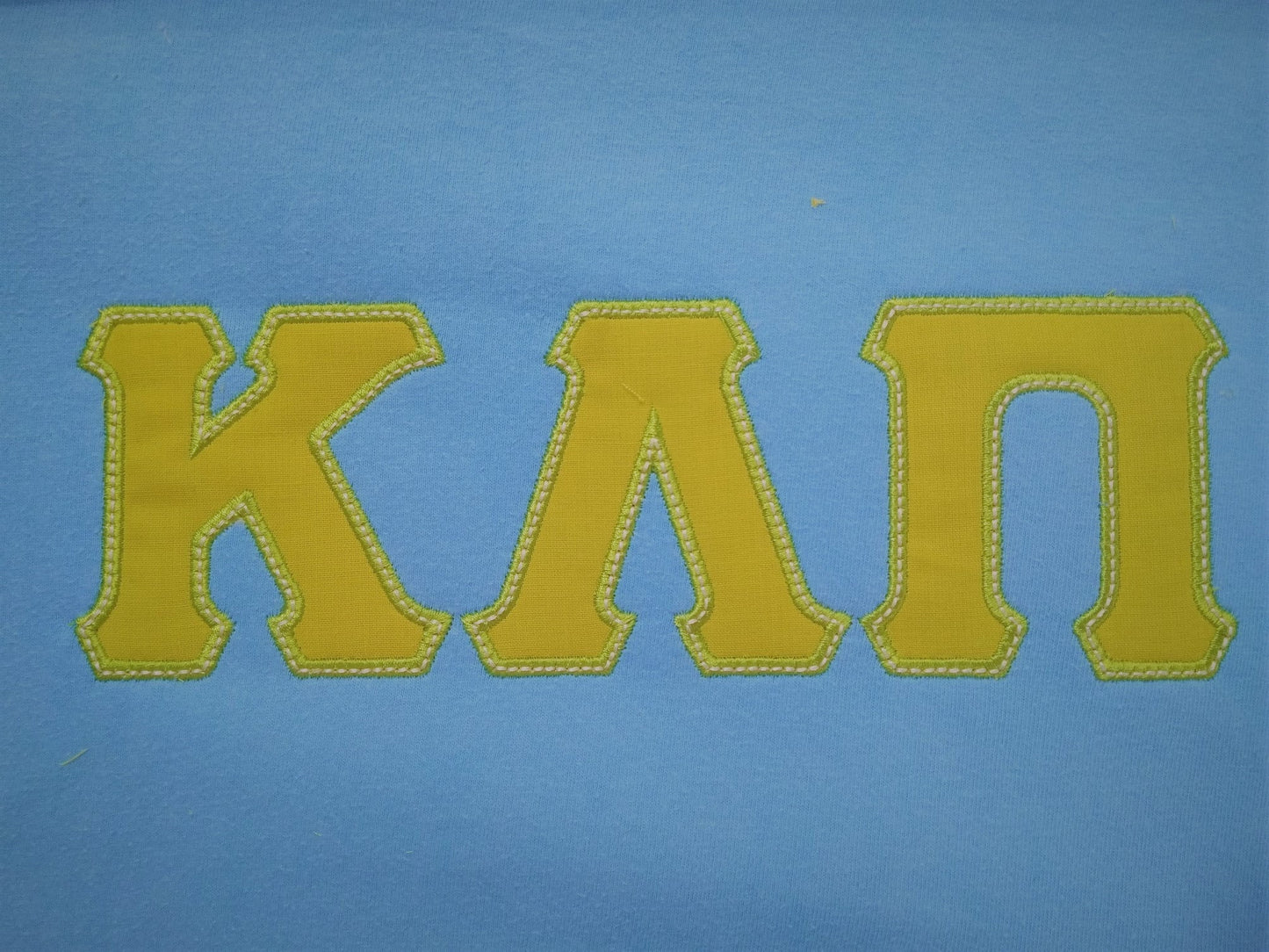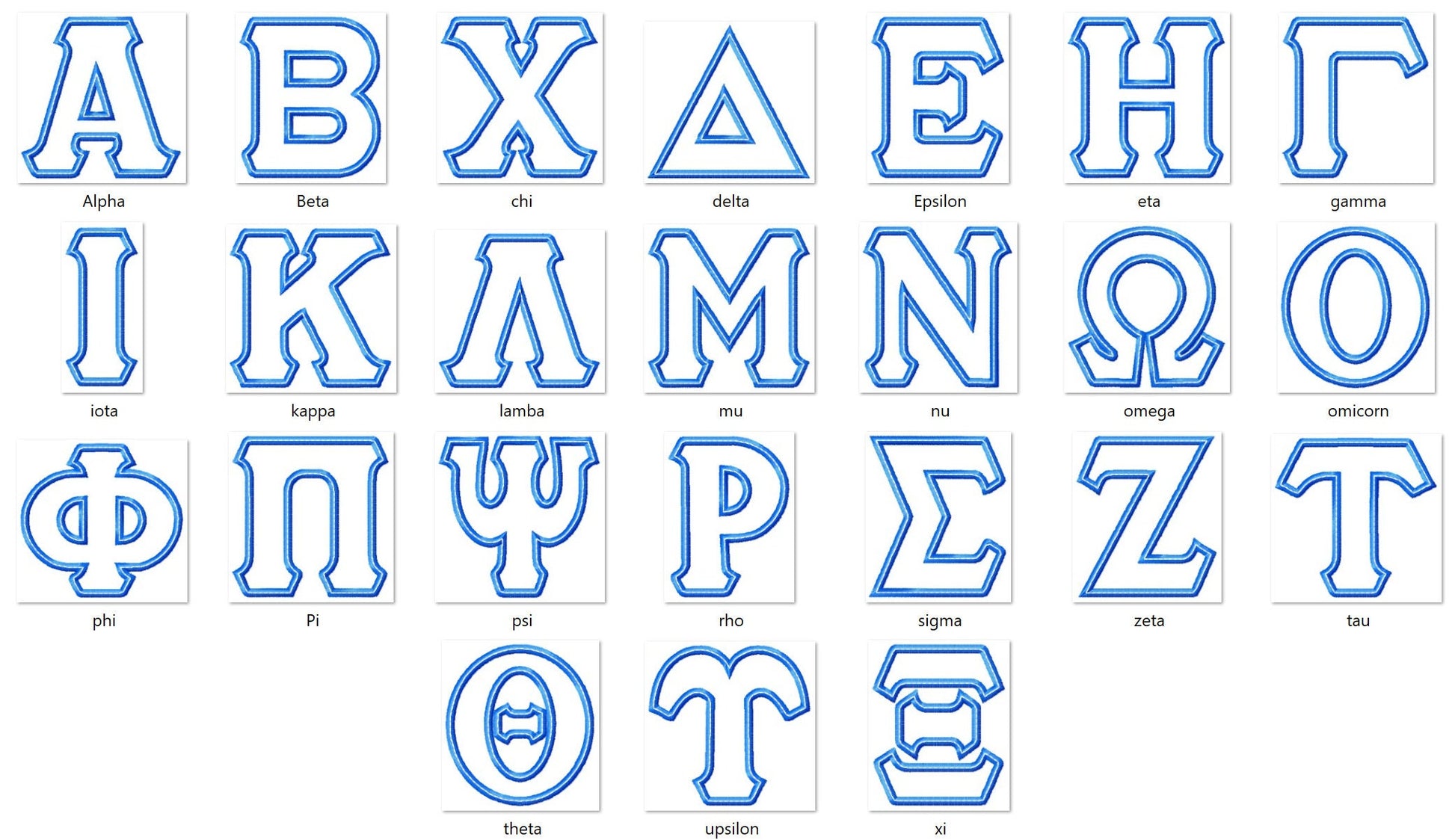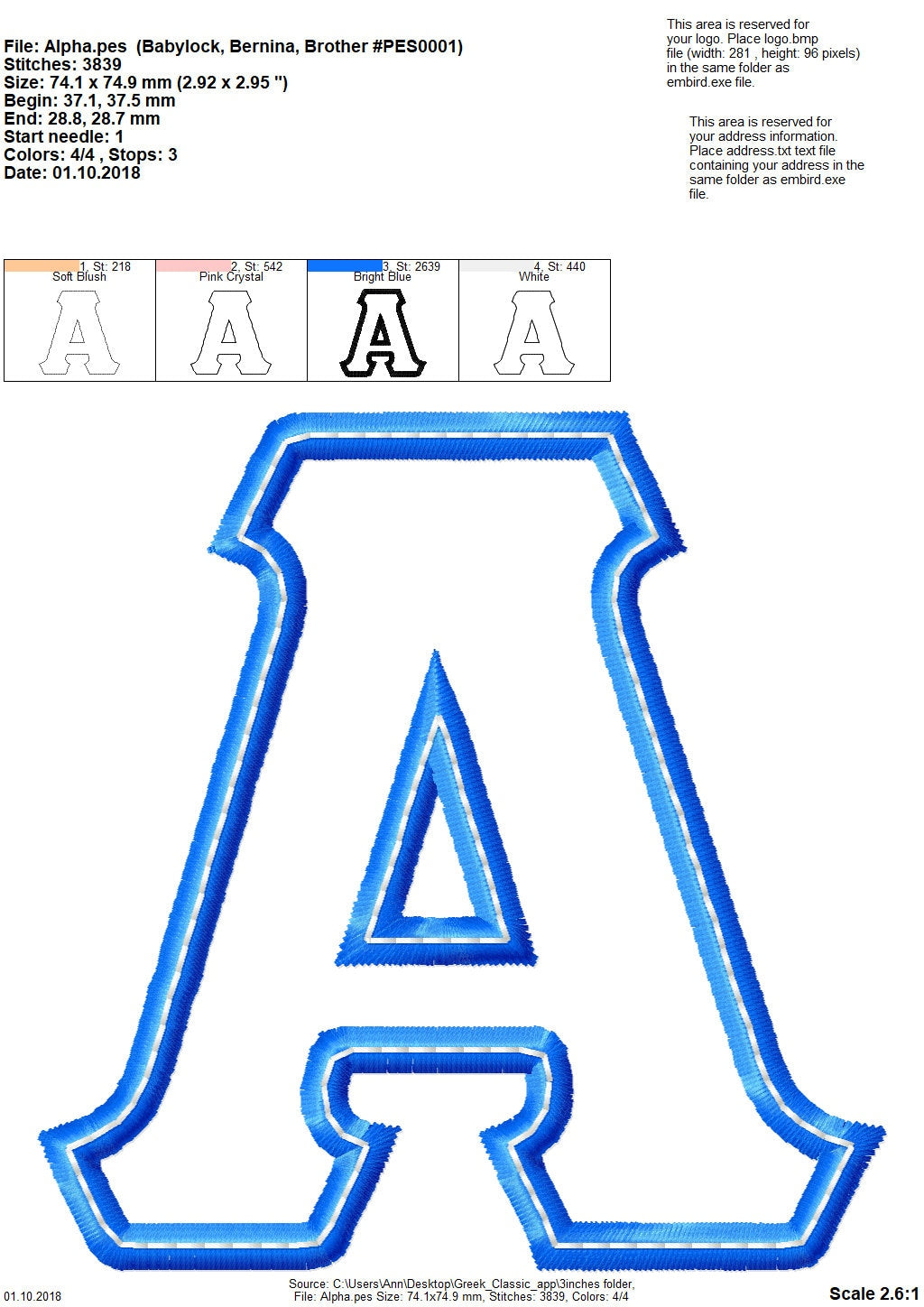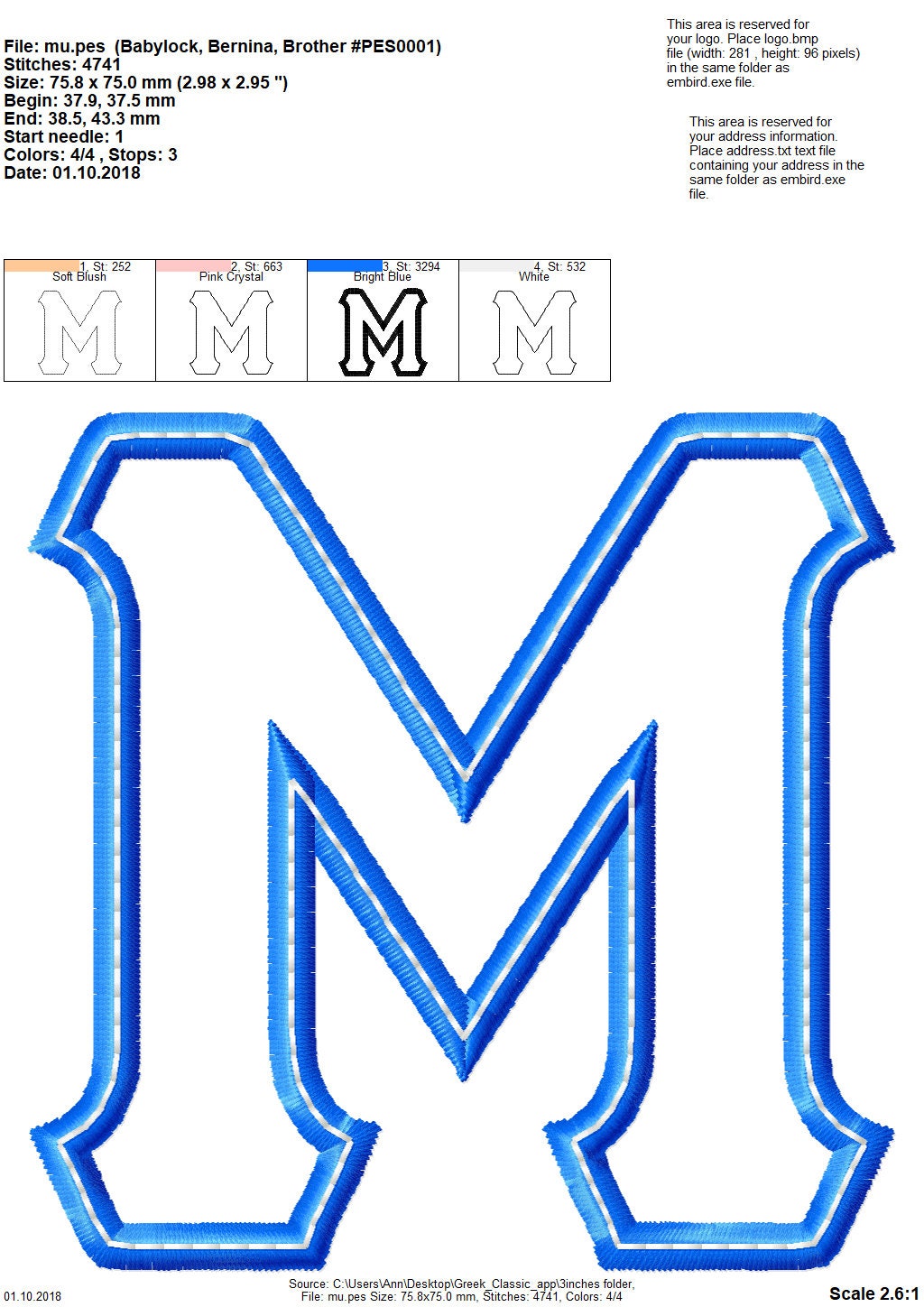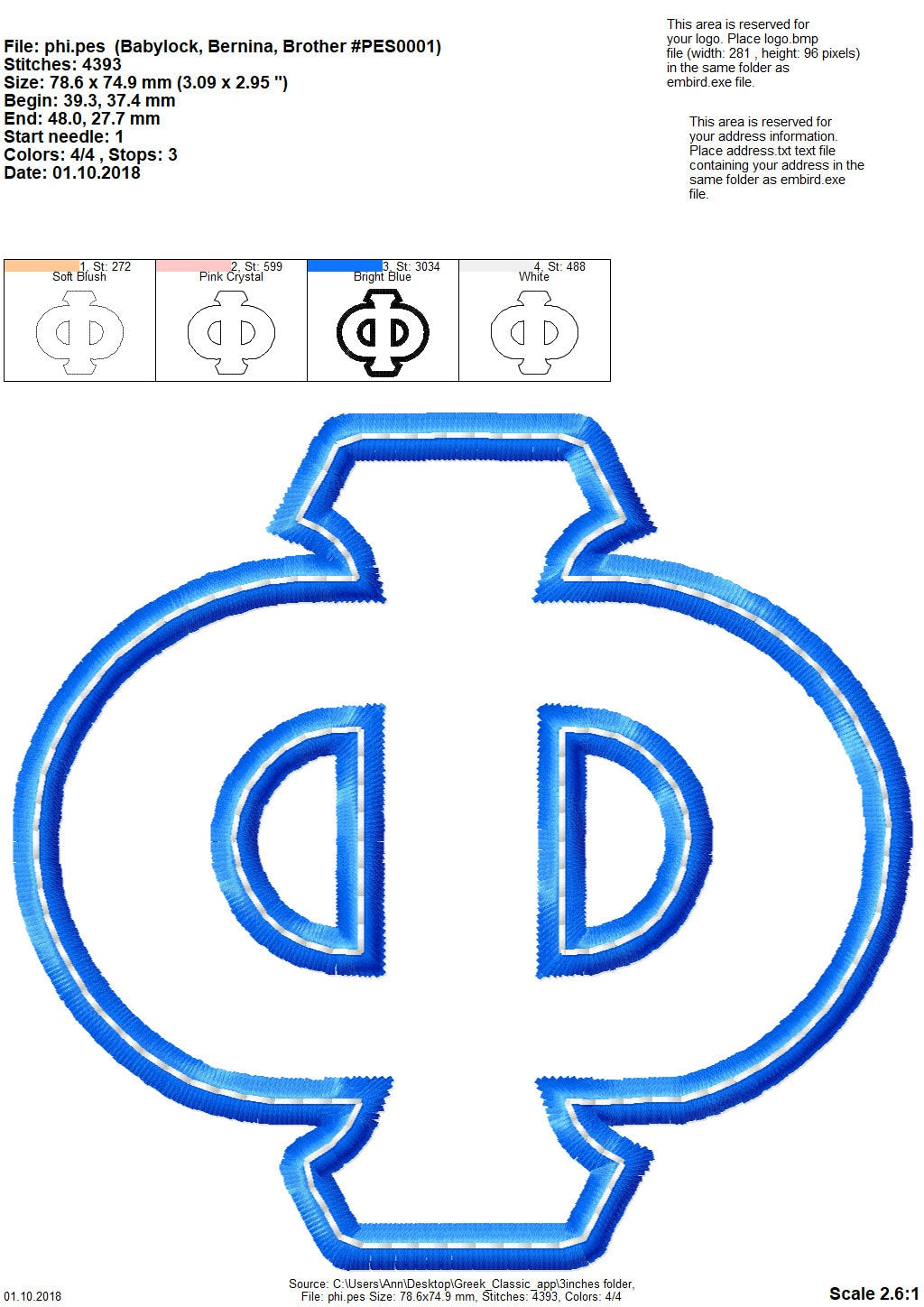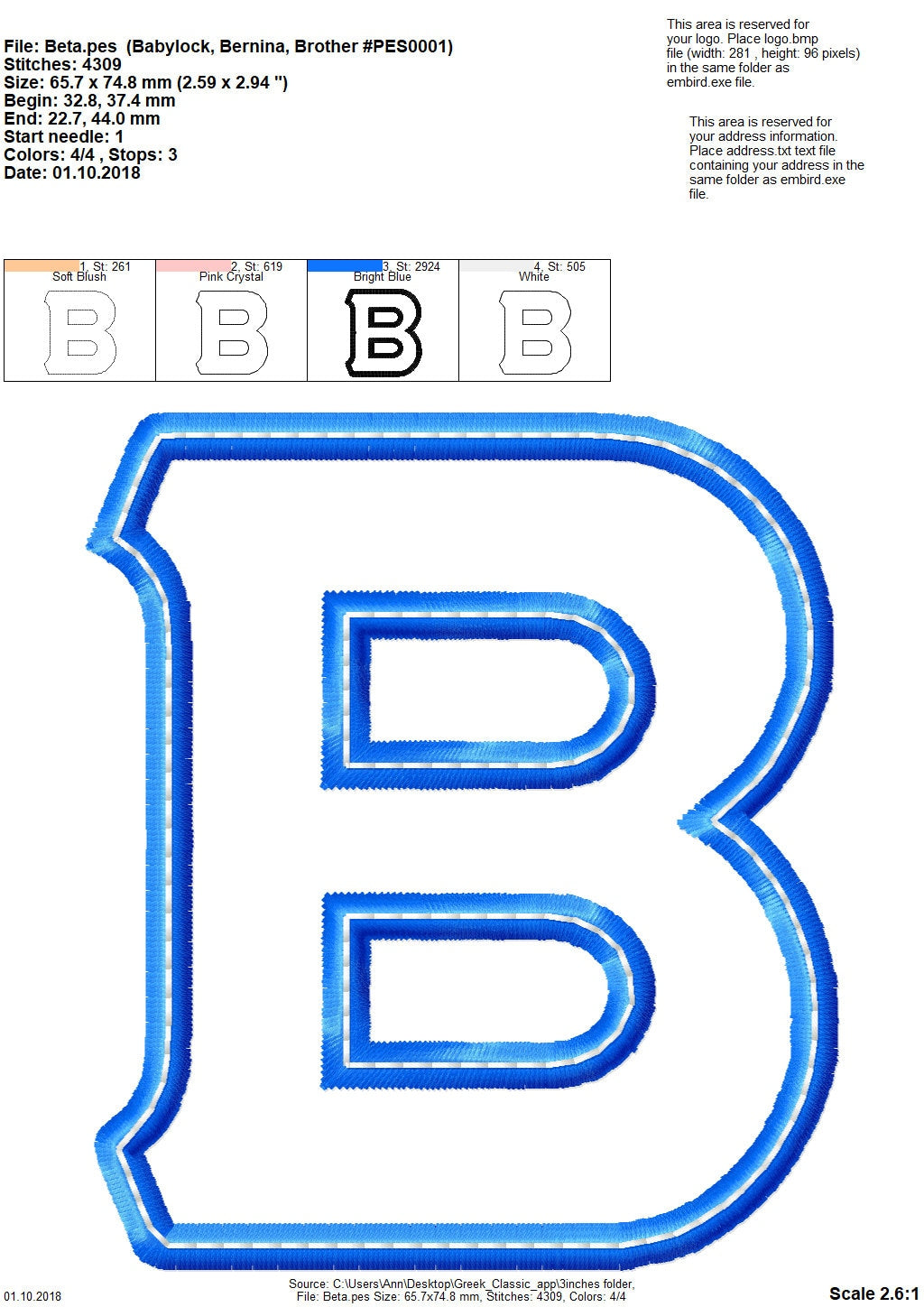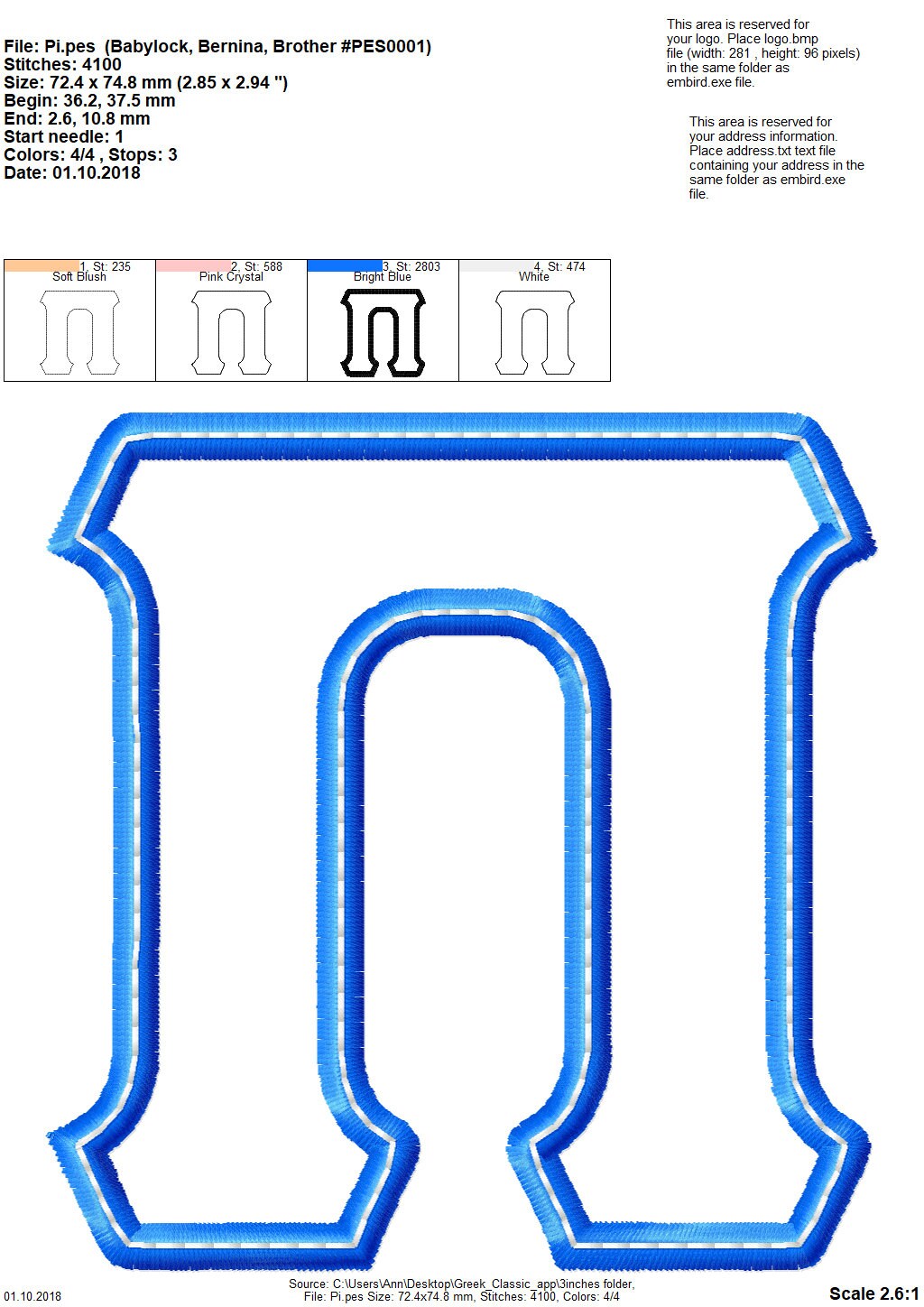
Such a good applique file!
Just what I needed to make this for my daughter!
This applique stitches out beautiful
Great stitching looks crisp and clean
Just what I needed for a project. Stitched out great.
Stitched out great! Thanks 👍 😊
Great font. Will use it a lot!
My grand daughter loved to see her sorority in a sweat shirt.
Font was exactly what I needed.Stitched out great.
Used this for a wreath ribbon of college apartment. Girls loved it.
Awesome. Easy to use
it stitched out beautifully for me.
Very cute… The outside border has a pretty chain stitch on it. My first time trying an appliqué!
Stitched out beautifully & was able to shrink design for pj shorts no problem
Stitched out beautifully. Thank you
Great for making Greek items
Great appliqué design. Stitched out well on a light weight T shirt. I will be using this design on other fabric types as well.
stitches out perfectly! highly reccomend!
This stitched out absolutely beautiful!
stitches out nicely, my daughter's friend loved it
These letters are beautiful and very easy to use.
great files! i love all the different sizes. it was so fun to do machine applique with.
stitched out perfectly thank you
I don’t like to write a review. But I love the product!
Stitched out great! Absolutely perfect and just what I needed.
Fast and easy. Project made for my niece in one evening!
Stitched out great! Would suggest a key for BX users.
I love how this stitched up.
Letters sewed out fine; no problems!
I embroidered this design on a sweatshirt and it worked beautifully.
Exactly what I was looking for. Made one momma really happy.
I needed this for a client and I am very happy with the results! 💗
It works great! Thank you!!
This stitched out perfectly, Thanks!
Stitched turned out great.. I will order again!!